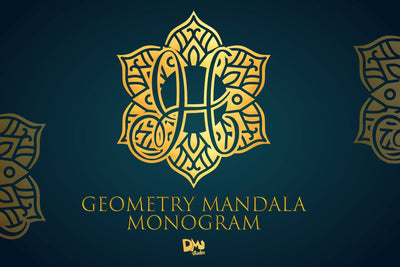
Geometry Mandala Monogram
Geometry Mandala Monogram – Precise & Elegant Geometric Letter Art
Geometry Mandala Monogram is a sophisticated blend of symmetry and creativity, offering beautifully crafted letters nestled within intricate geometric mandala patterns. This font is perfect for logos, wedding designs, brand identities, decorative monograms, wall art, and more where you want a balance of order, elegance, and ornamental flair.
Intricate Geometric Mandalas: Every letter is framed with precise geometric shapes that form a harmonious and symmetrical mandala.
Perfect for Sophisticated Designs: Ideal for branding, stationery, packaging, or anything that needs a refined, ornamental touch.
Monogram-Focused: Designed primarily for use as initials or decorative accents.
Clean Vector Lines: Optimized for cutting machines, laser engraving, Cricut, Silhouette, and digital crafting.
Full A–Z Set: Includes all 26 uppercase letters as individual mandala monograms.
Versatile Use: Use them for vinyl decals, product labels, posters, gifts, and digital artwork.